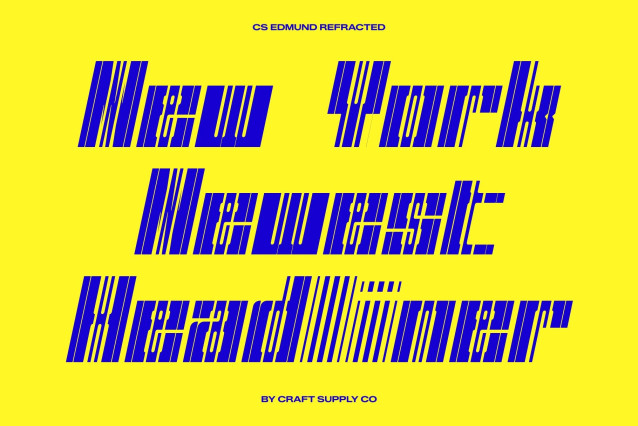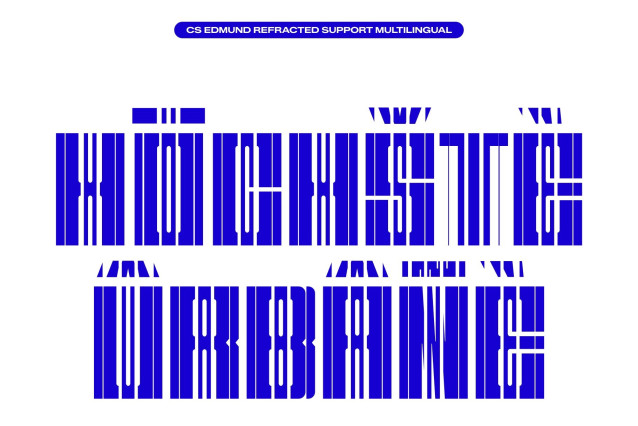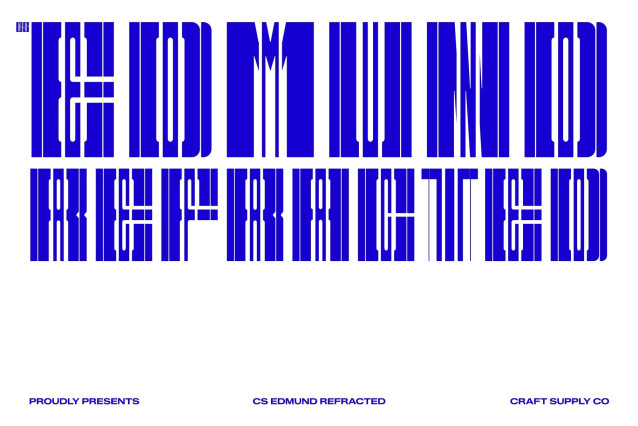
CS Edmund Refracted Font
CS Edmund Refracted – Bold Condensed Sans Serif Font: Where Futuristic Glitch Meets Bold Precision
Fragmented Geometric Forms with Dynamic Energy
This is a bold condensed display font designed with striking refracted effects inspired by glitch like light distortions. Its characters appear cut, fragmented, and sliced with sharp geometric precision, creating a futuristic and experimental visual identity. The condensed structure intensifies its strong presence, making every composition feel powerful, energetic, and visually commanding.
Glitch-Inspired Style with Technological Edge
This font delivers a typographic style filled with digital energy and cyber inspired aesthetics. The fractured details evoke neon reflections, technological interference, and futuristic motion, giving the font a bold and innovative personality perfect for contemporary creative projects.